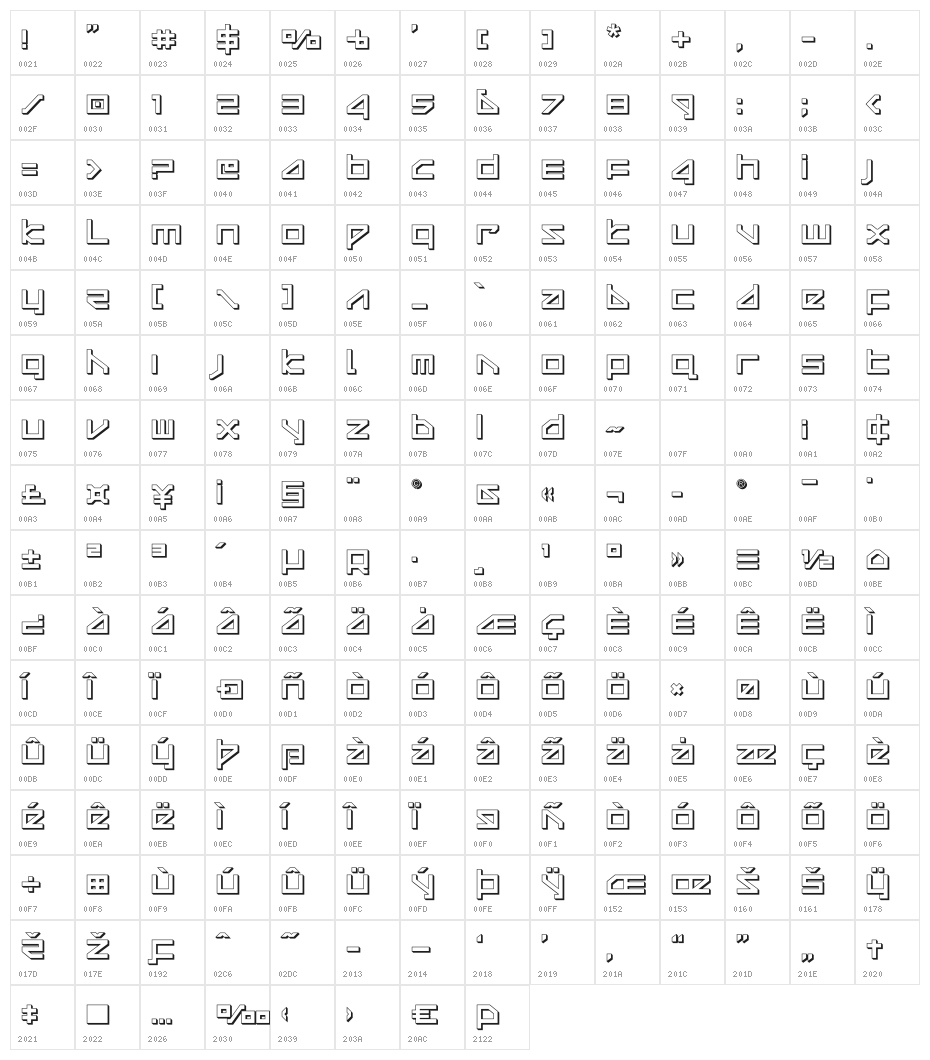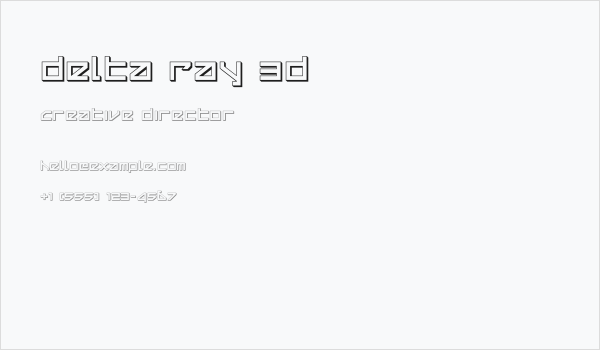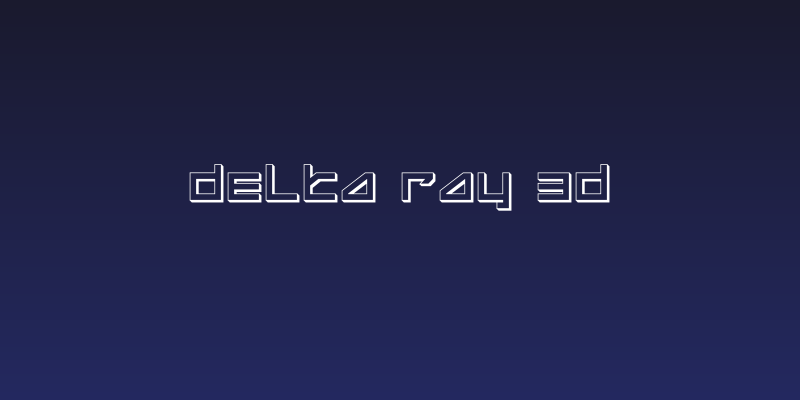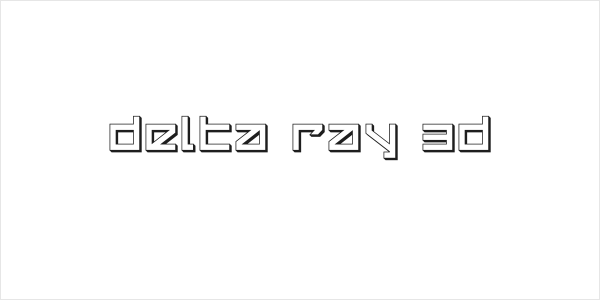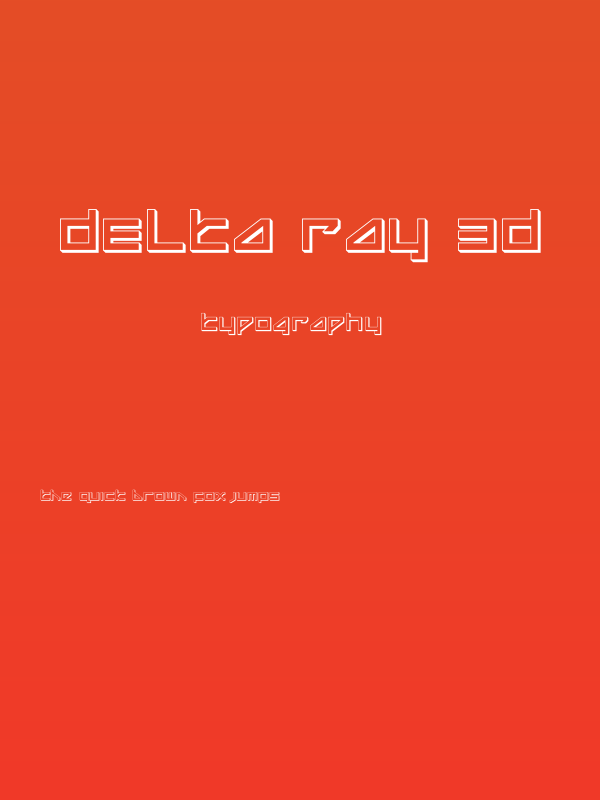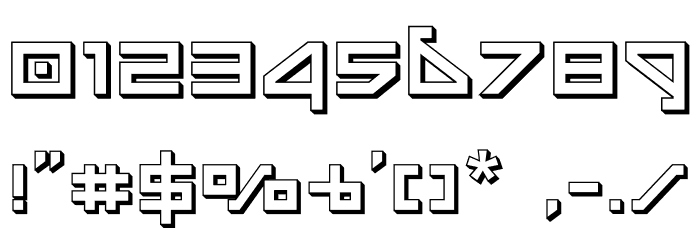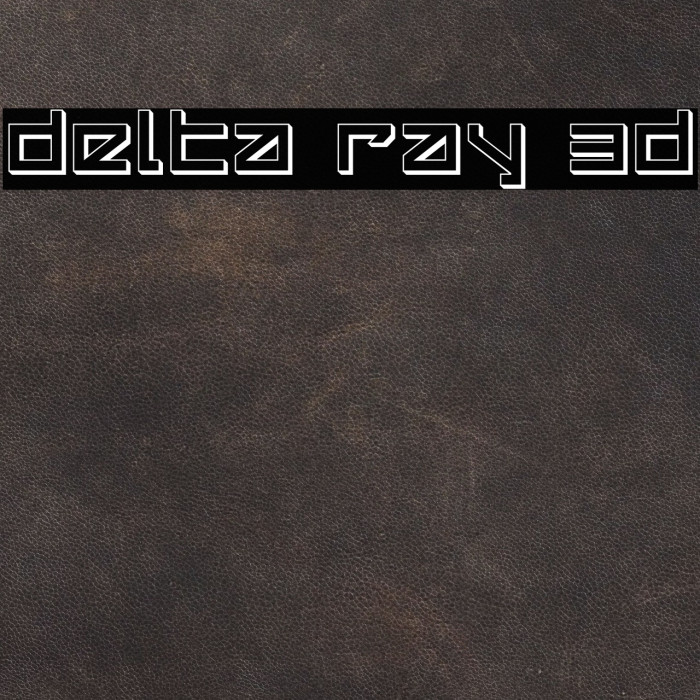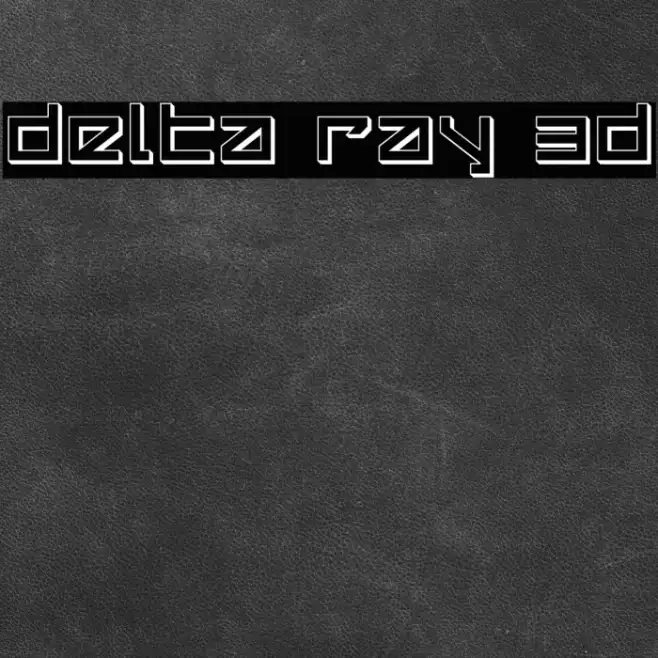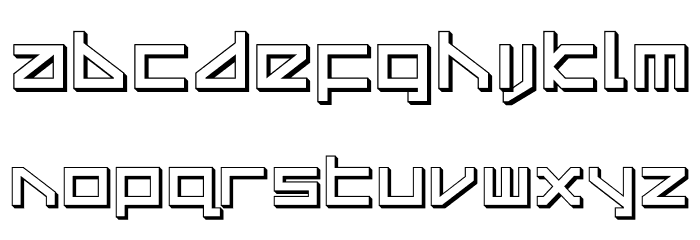
Delta Ray 3D Font
Delta Ray 3D Description
This font features a futuristic and geometric design with a three-dimensional effect. The characters are outlined with a bold, consistent stroke, creating a sense of depth and modernity. The angular and sharp edges give it a tech-inspired look, making it stand out with its unique style. The uppercase and lowercase letters maintain a uniform structure, while the numbers and special characters follow the same design principles, ensuring consistency throughout the font. Its distinct appearance makes it suitable for projects that require a modern and edgy aesthetic.
| Proposed Projects | Ideal for technology branding, video game titles, sci-fi posters, and modern digital interfaces. |